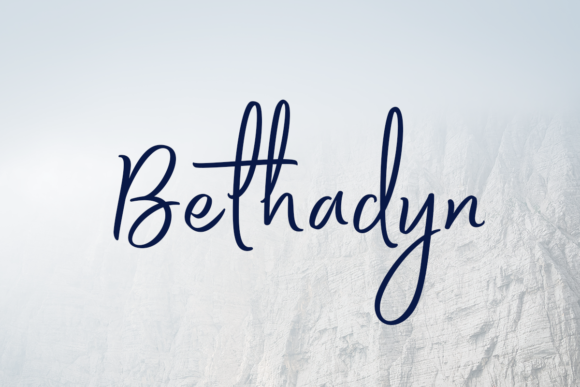
Prepare to envelop your audience in an exquisite typographic experience with Bethadyn, the script font that captures the essence of elegance and artistry. This meticulously crafted handwritten font boasts an ethereal charm that will transform your designs into breathtaking works of art. Step into the realm of creativity as you explore a universe of possibilities with Bethadyn, your quintessential choice for crafting designs that resonate with beauty and personality.
With Bethadyn, you'll embark on a journey through the world of custom lettering, where every word becomes an expression of heartfelt emotion. Whether you're crafting wedding invitations that exude a timeless allure or designing thank-you cards that overflow with gratitude, Bethadyn will effortlessly elevate your creations. Its fluid lines and graceful curves dance across the page, carrying your message with understated poise and sophistication.
Witness the versatility of Bethadyn as it harmoniously adapts to a multitude of design projects, from logos that command attention to greetings cards that warm the heart. Its remarkable flexibility allows you to capture the essence of your brand or project with a touch of personal charm, leaving a lasting impression that speaks volumes.
Bethadyn possesses an inherent charm that will captivate your audience, drawing them into the allure of your design. Its ability to evoke emotion and convey personality makes it the ideal choice for creating designs that resonate on a deeper level. Prepare to create designs that connect with your audience, captivating their senses and leaving them utterly spellbound.
So, embrace the majesty of Bethadyn, the script font that will redefine your creative horizons. Unveil its elegance, versatility, and emotional depth as you embark on a journey of typographic exploration. Unleash the power of Bethadyn and witness the transformation of your designs into masterpieces that resonate with beauty, charm, and lasting impact.